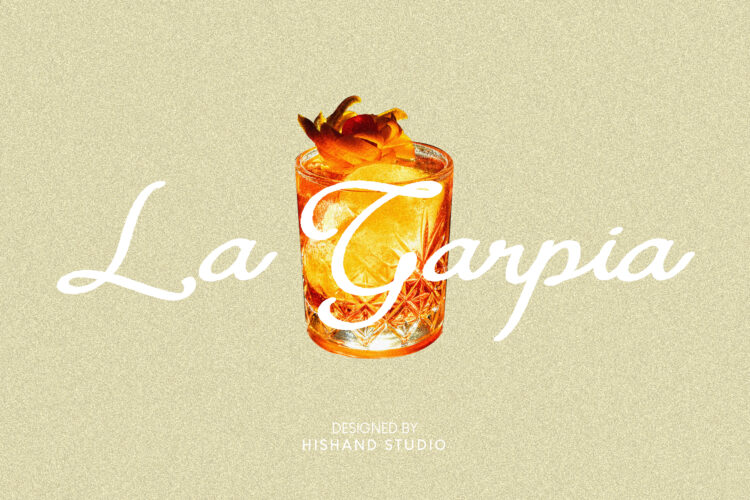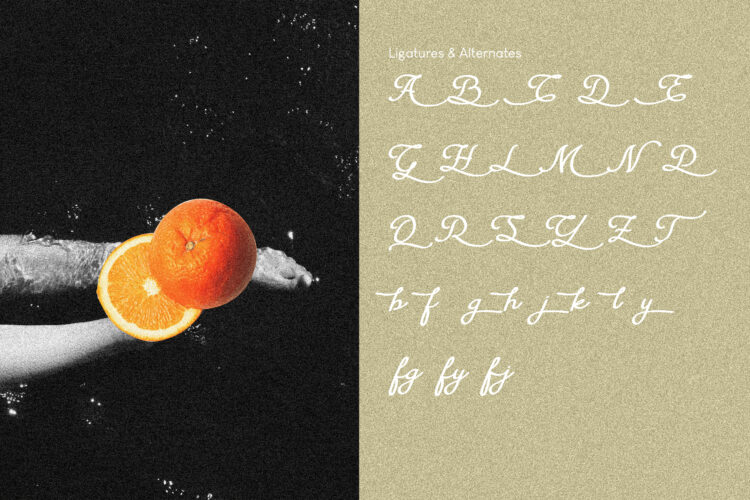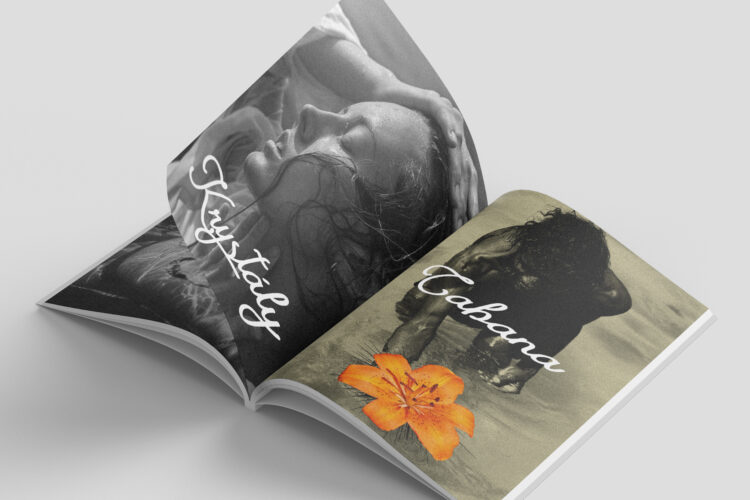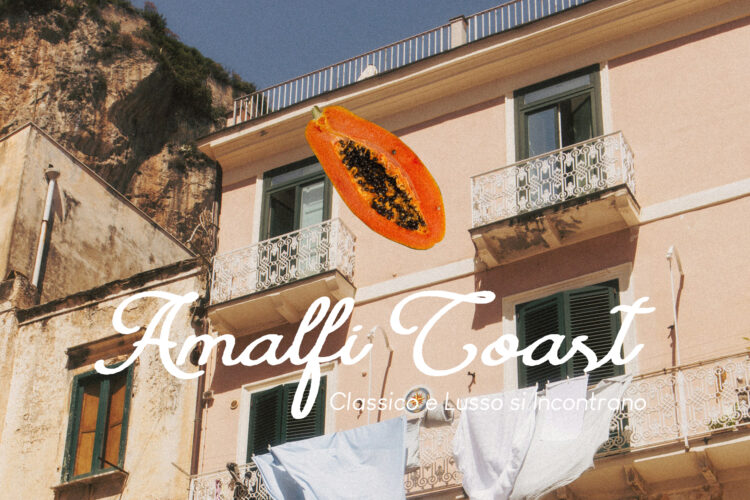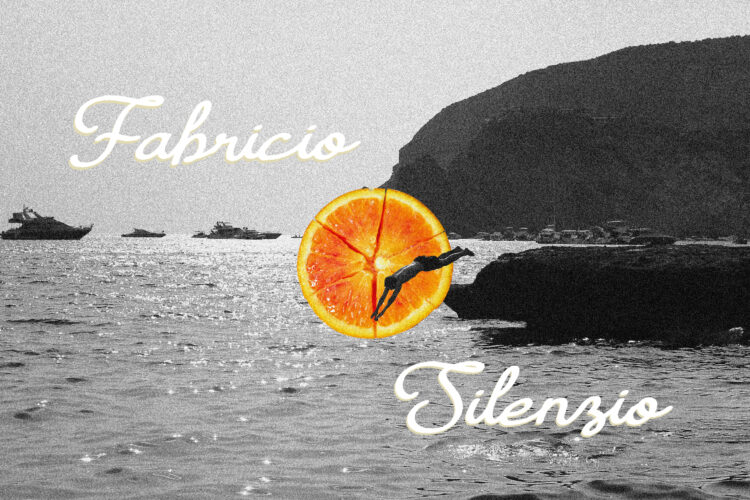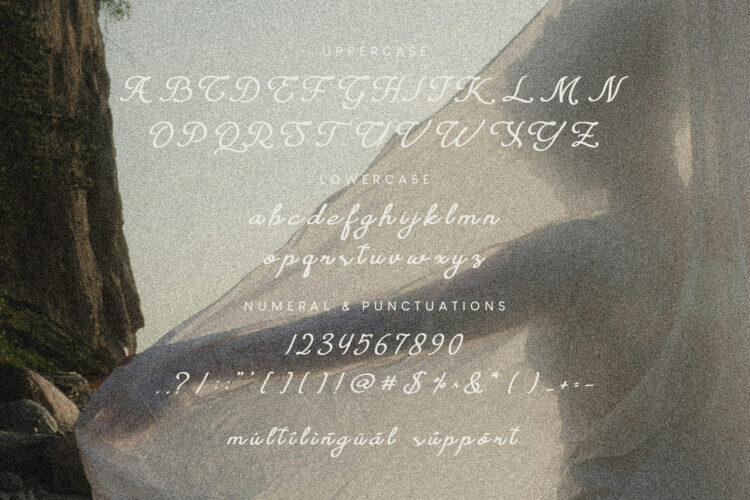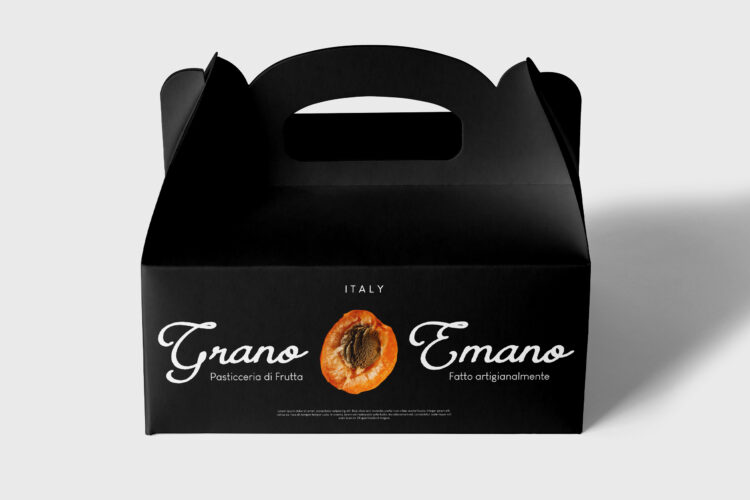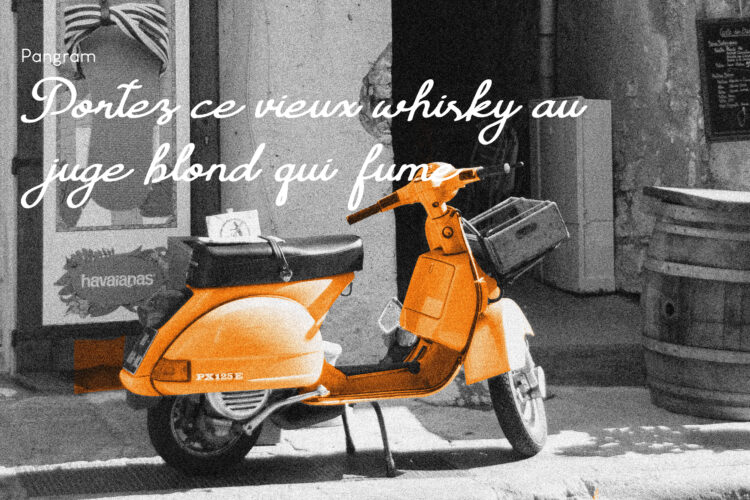
La Garpia is a handwritten script font that brings a clean, natural flow to every design. Crafted with a sense of balance and subtle rhythm, it carries the charm of organic handwriting while maintaining a professional and polished appearance. Its smooth curves and gentle strokes create an elegant yet relaxed look, making it a versatile choice for both modern and classic design themes.
Each letter in La Garpia is carefully shaped to reflect the natural movement of the hand, resulting in text that feels soft, authentic, and visually pleasing. The overall structure of the font combines beauty and practicality—each character connects seamlessly, allowing for smooth reading and consistent composition across various layouts. Whether used in large titles or delicate body text, La Garpia keeps its graceful form and readability intact.
The font’s balanced proportions and refined details make it suitable for a wide range of creative applications. It works beautifully in branding, stationery, product packaging, editorial layouts, logos, and digital content such as social media posts or website headers. La Garpia adds a sense of sophistication to any project without appearing overly formal, blending casual handwriting with an elegant touch.
Beyond its aesthetic qualities, La Garpia is designed for flexibility and ease of use. It includes a full set of uppercase and lowercase letters, ligatures, and alternates that let designers create more natural and expressive compositions. Multilingual support ensures it adapts well to various languages and global projects, maintaining the same smooth rhythm and consistent quality.
La Garpia’s effortless charm lies in its ability to convey emotion and personality through simple, flowing lines. It feels timeless yet modern—refined enough for luxury branding, but approachable enough for creative, everyday design. With its graceful movement and organic structure, La Garpia offers the perfect balance of style, warmth, and clarity.
Whether used for personal projects or professional design work, La Garpia enhances the visual story with a natural handwritten touch that feels genuine and thoughtfully crafted. Elegant, versatile, and beautifully balanced, it’s a font made to bring character and harmony to any creative piece.